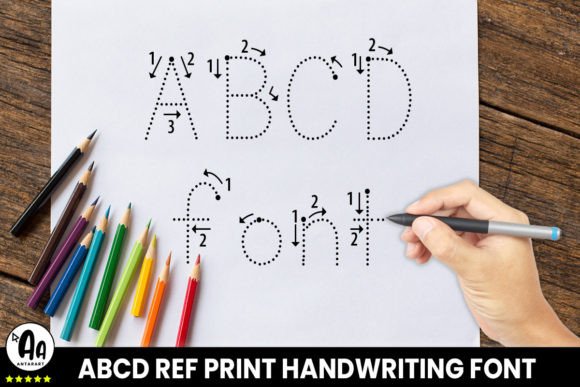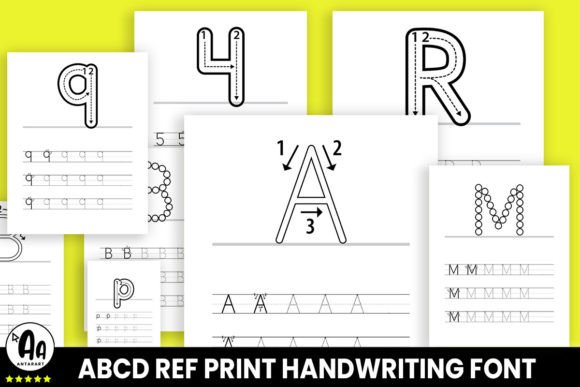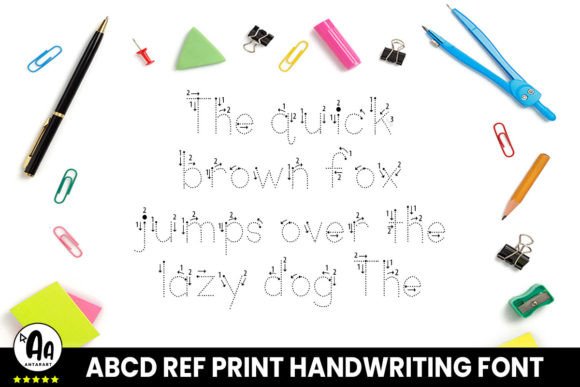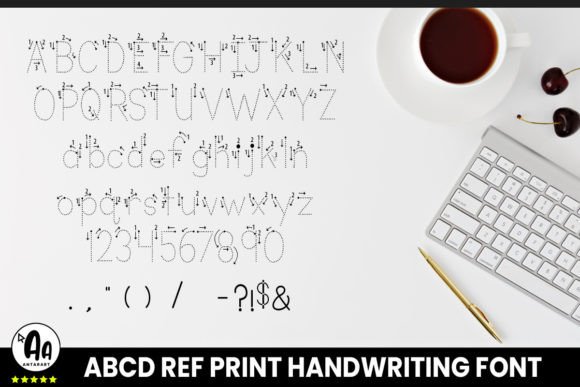
Abcd Ref Dotted Arrows Font
ABCD Ref Dotted Arrows (ABCD Ref font family)
This dotted display font is based on the D’Nealian Method US school and helps you create thousands of worksheets. It is a great learning resource for those who want to learn or teach the print alphabet enjoyably and interactively.